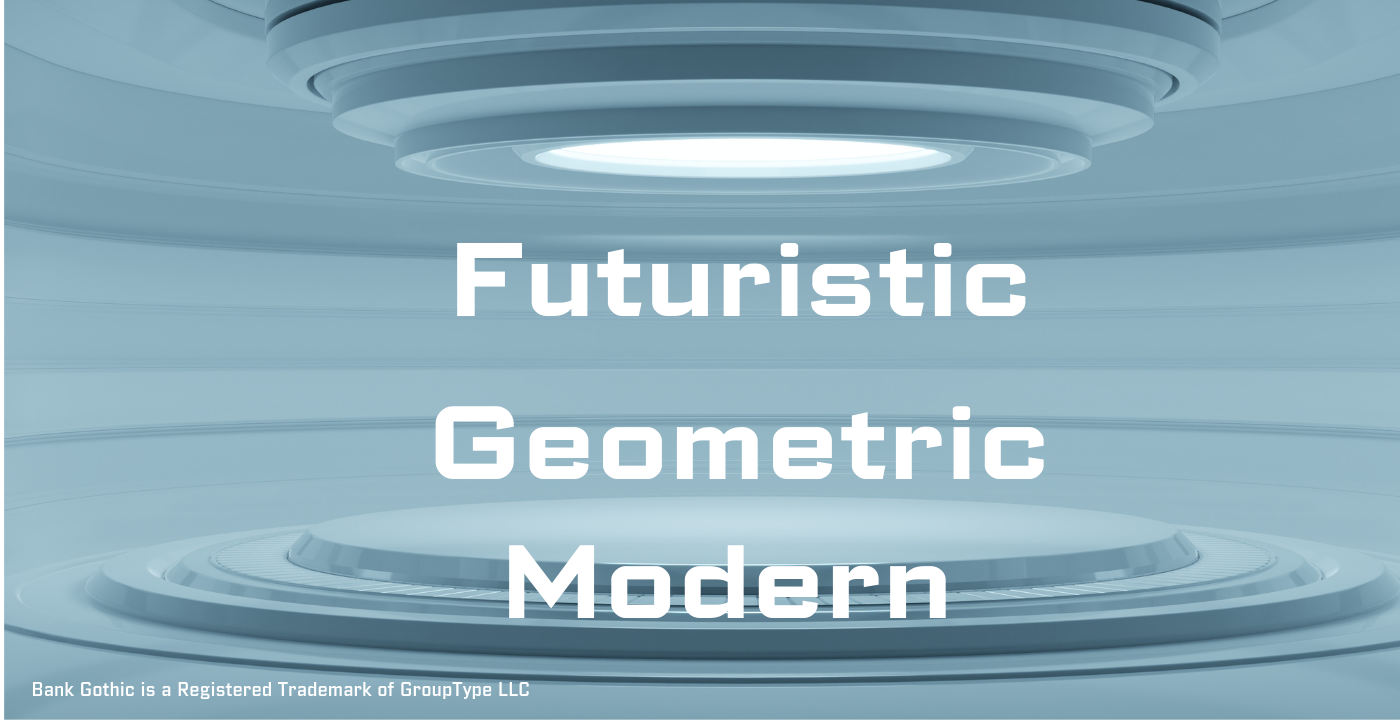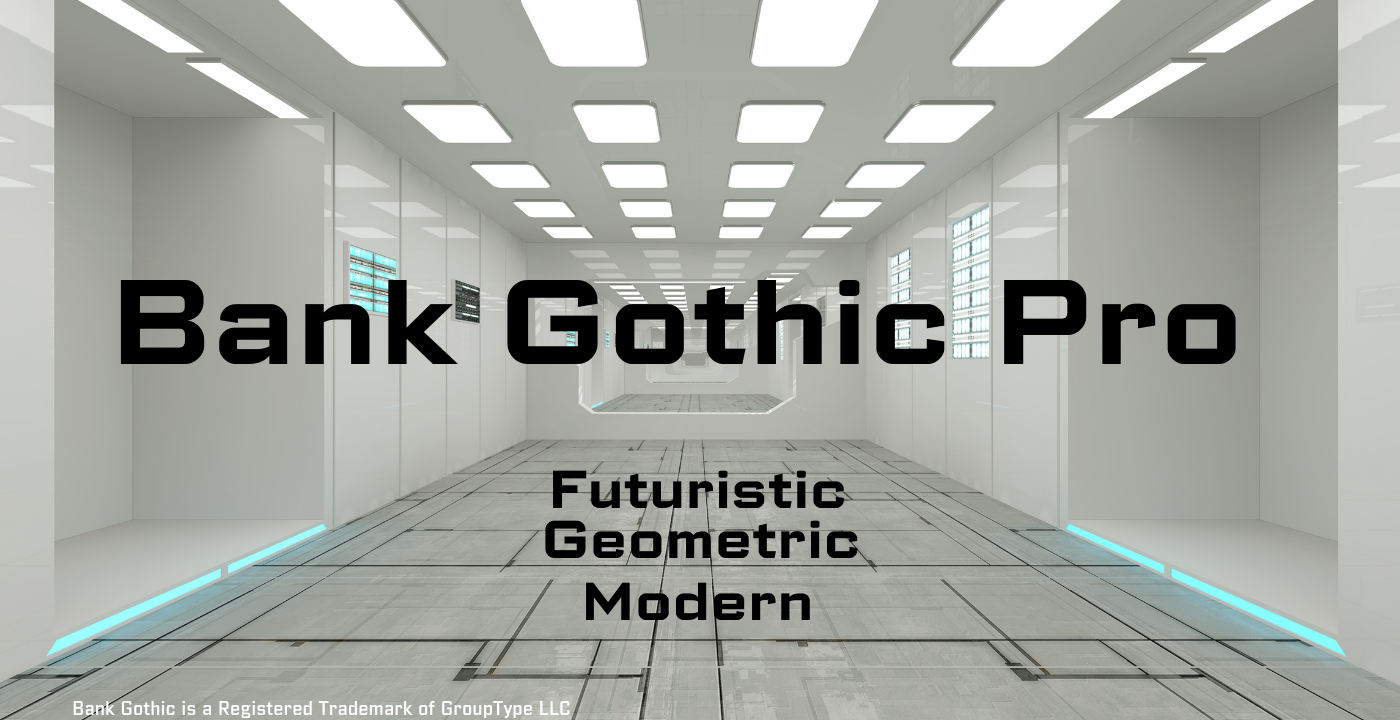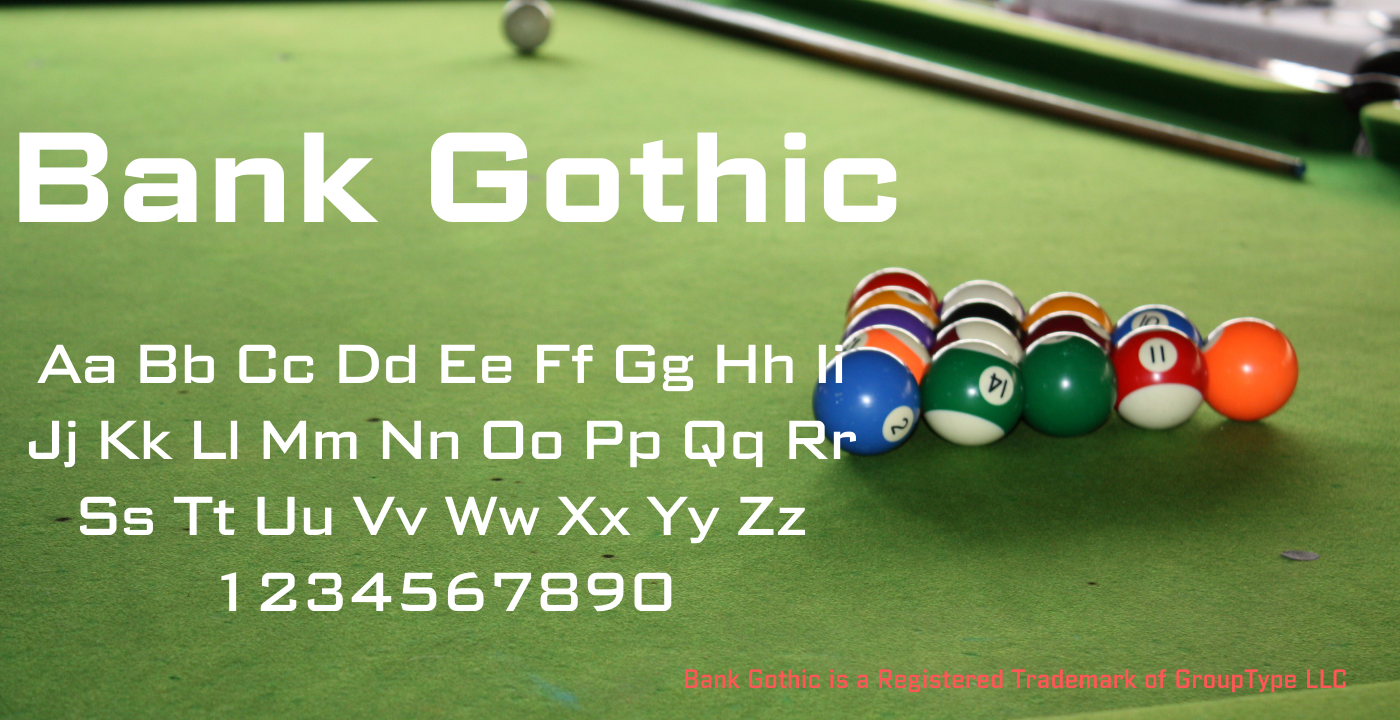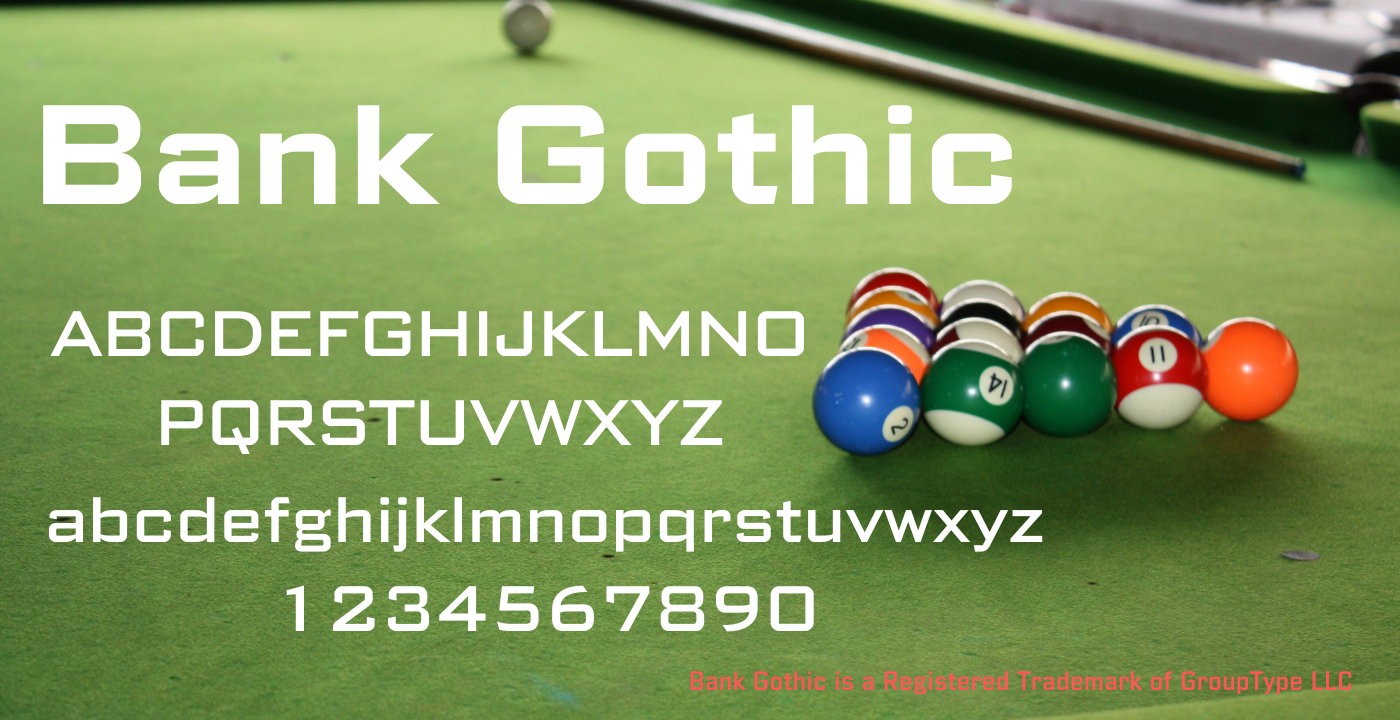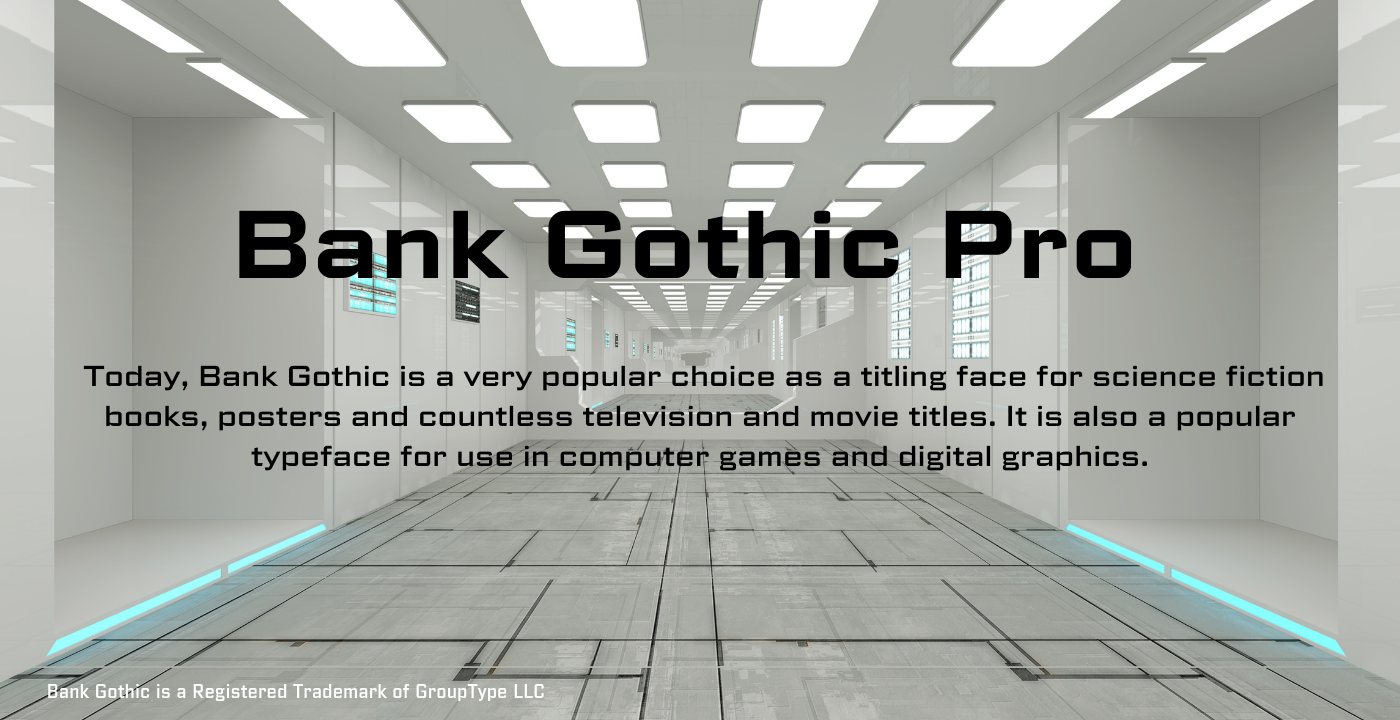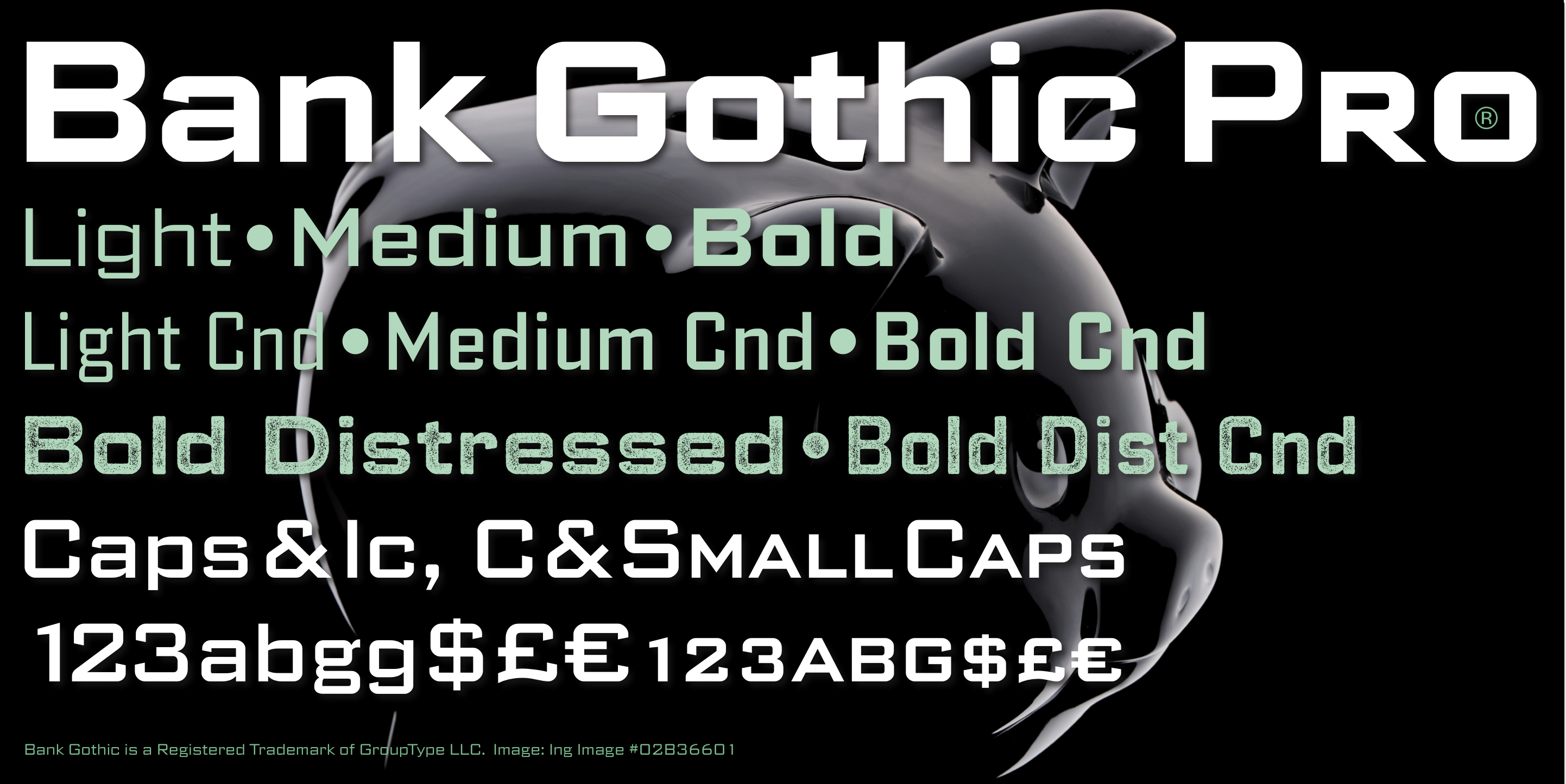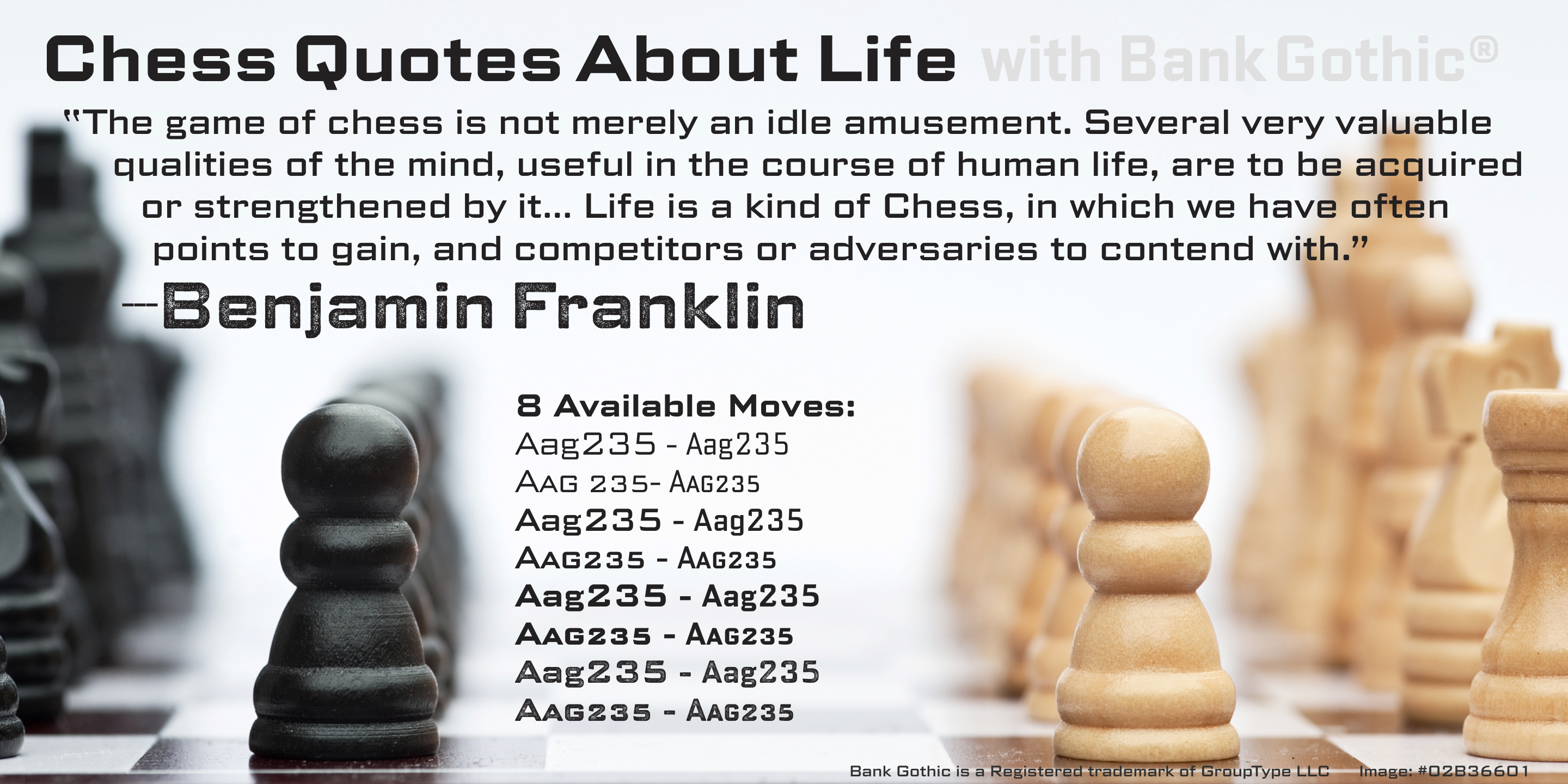
Bank Gothic Pro Family (8 fonts)
GroupType is a foundry favoring period and revival typeface designs. It is a subsidiary of FontHaus. From Aquiline®, a period 16th-century typeface to great revivals like Carpenter®, Corvinus Skyline, Cloister Initials and Detroit Metro®, these typefaces also have great contemporary appeal as well as important historical value. Use as headlines or drop caps mixed with your favorite text.